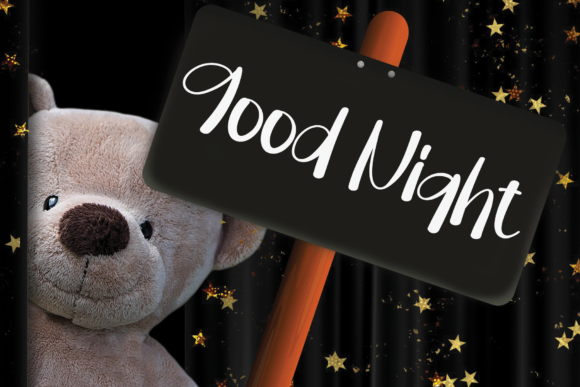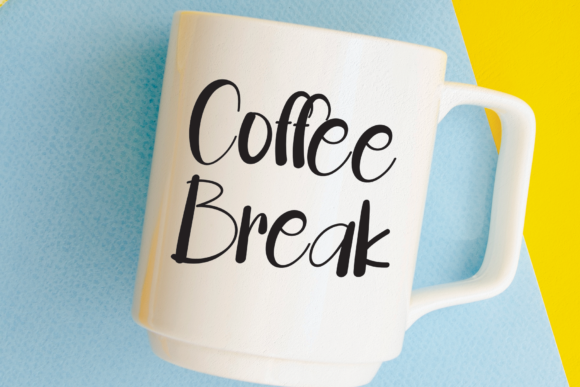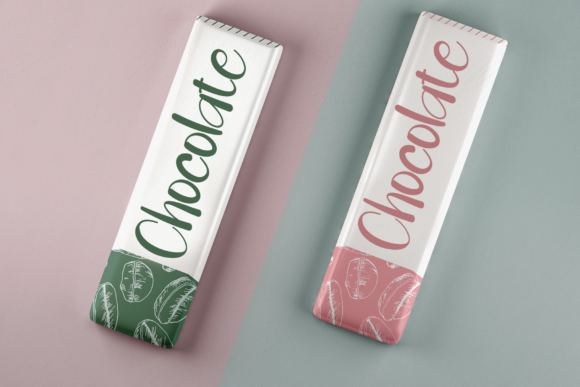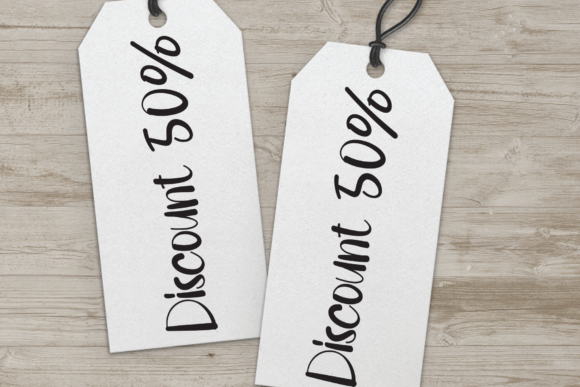
School to Learn Font
About School to Learn Font
School to Learn is a laid-back and casual handwritten font. Whatever the topic, this font will be a wonderful asset to your font library, as it has the potential to enhance any creation.